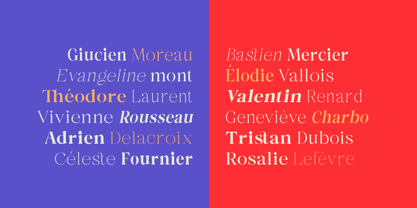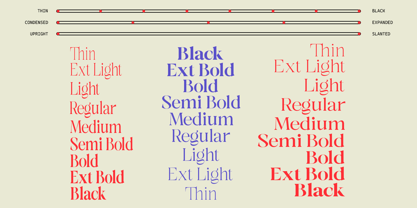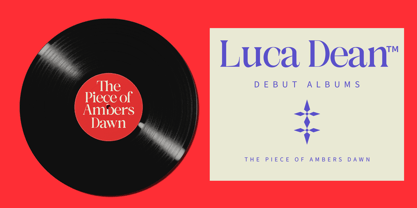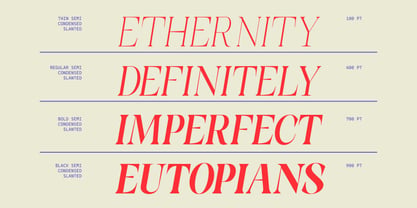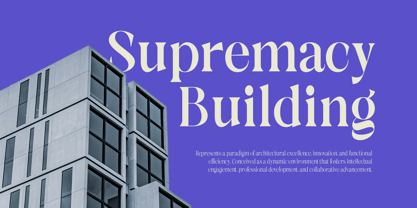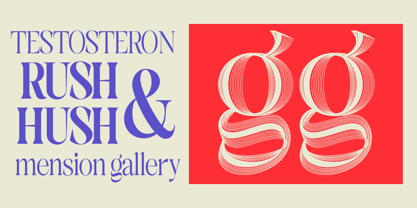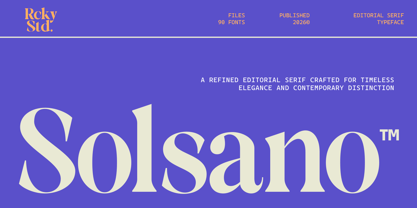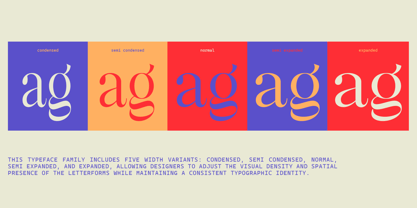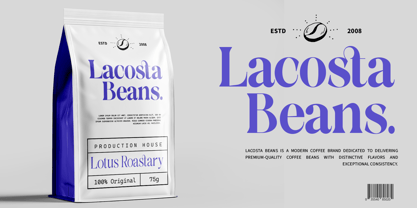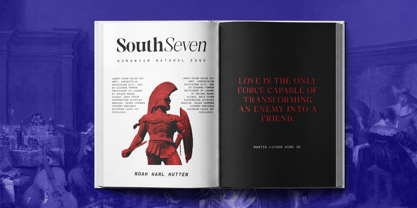
Solsano
Solsano is a refined editorial serif typeface that brings together timeless elegance and contemporary character. Its high-contrast strokes, graceful curves, and sculptural letterforms create a sophisticated visual rhythm that feels equally at home in fashion editorials, luxury branding, art direction, and modern publishing.
Designed to make an impression, Solsano balances classic typographic heritage with a bold, expressive attitude. The dramatic proportions and delicate hairlines give headlines an unmistakable sense of luxury, while its distinctive details add personality without sacrificing readability.
Timeless in spirit. Contemporary in expression. Distinctive by design.
Solsano is a refined editorial serif crafted for timeless elegance and contemporary distinction.